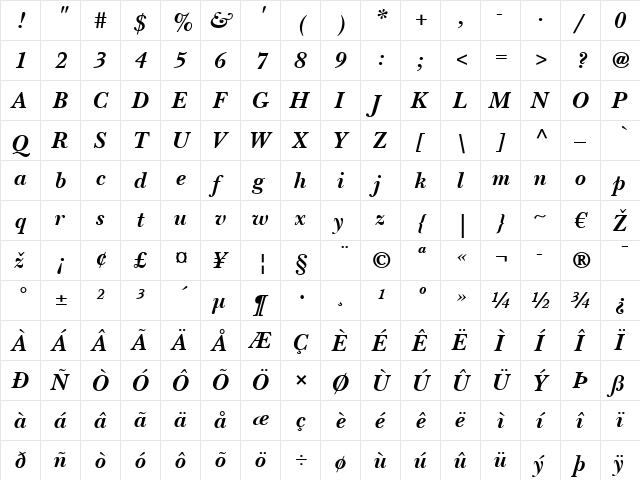
NewBaskerville LT Bold Italic
Design Context for NewBaskerville LT Typeface
NewBaskerville LT is a composed and adaptable typeface that performs quietly and consistently across a wide range of design contexts. The slanted form adds forward momentum and visual energy. Its bold stroke weight gives it real presence on the page.
Pro Tip: Use NewBaskerville LT for emphasis, pull quotes, and subheadings where its slanted energy can add rhythm to the layout.